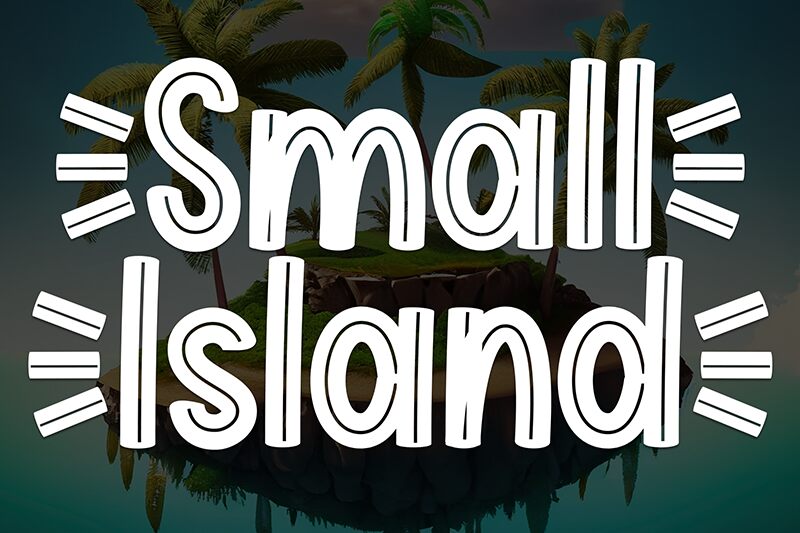
Small Island
Small Island font, created by Scratchones, is a delightful display font with a textured and retro presence. Its informal letters carry playful elements formed by wavy lines and lighting patterns. The decorative typeface has an impact on audiences due to its distinctive style.